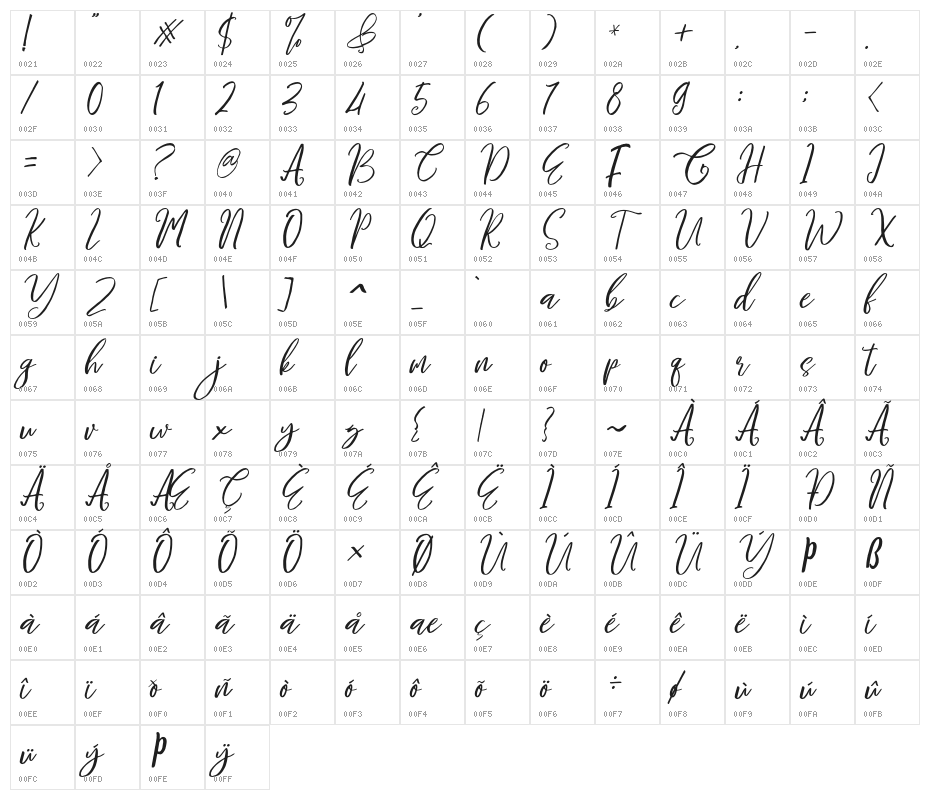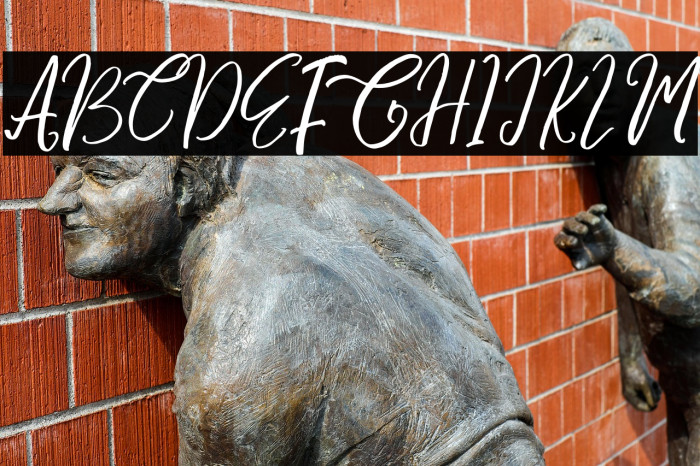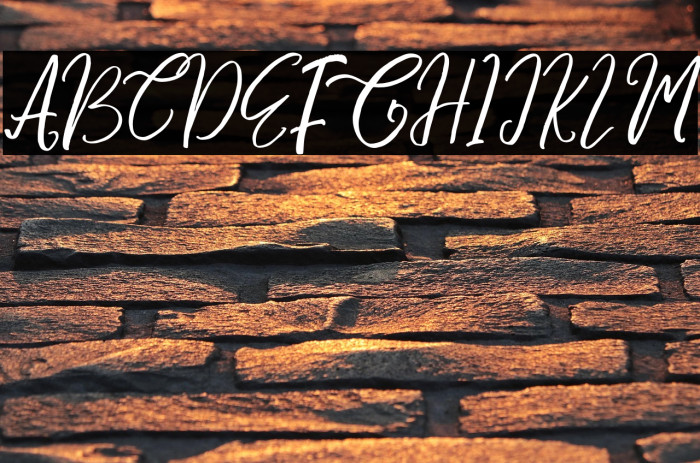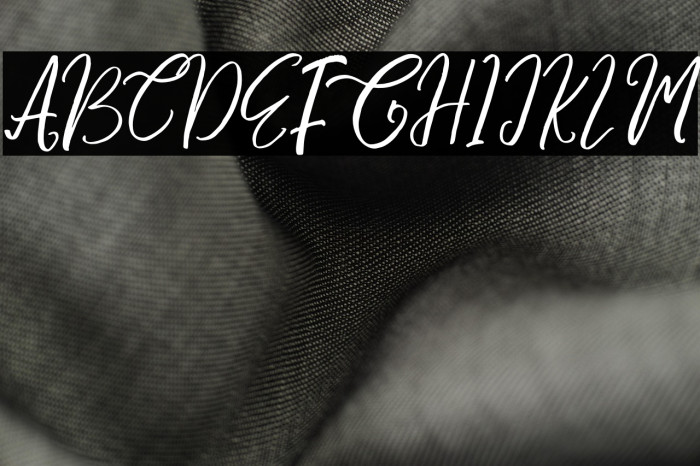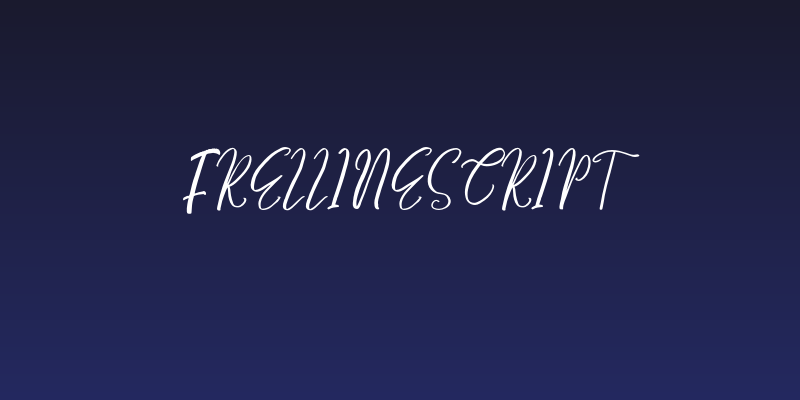
FrellineScript Font
FrellineScript Description
This script font exudes elegance and fluidity, characterized by its smooth, flowing strokes and cursive style. The letters are interconnected, creating a seamless and continuous look that mimics natural handwriting. The uppercase letters are tall and slightly slanted, while the lowercase letters maintain a consistent baseline with graceful loops and curves. The numerals are stylishly integrated, matching the overall script aesthetic. Special characters are thoughtfully designed to complement the font's graceful appearance. This font is perfect for projects that require a personal touch, such as invitations, greeting cards, or branding materials.
| Overall Style | Elegant |
| Use Case | Logos, Invitations, Greeting Cards |
| Proposed Projects | Ideal for wedding invitations, personal branding, greeting cards, and elegant packaging designs. |